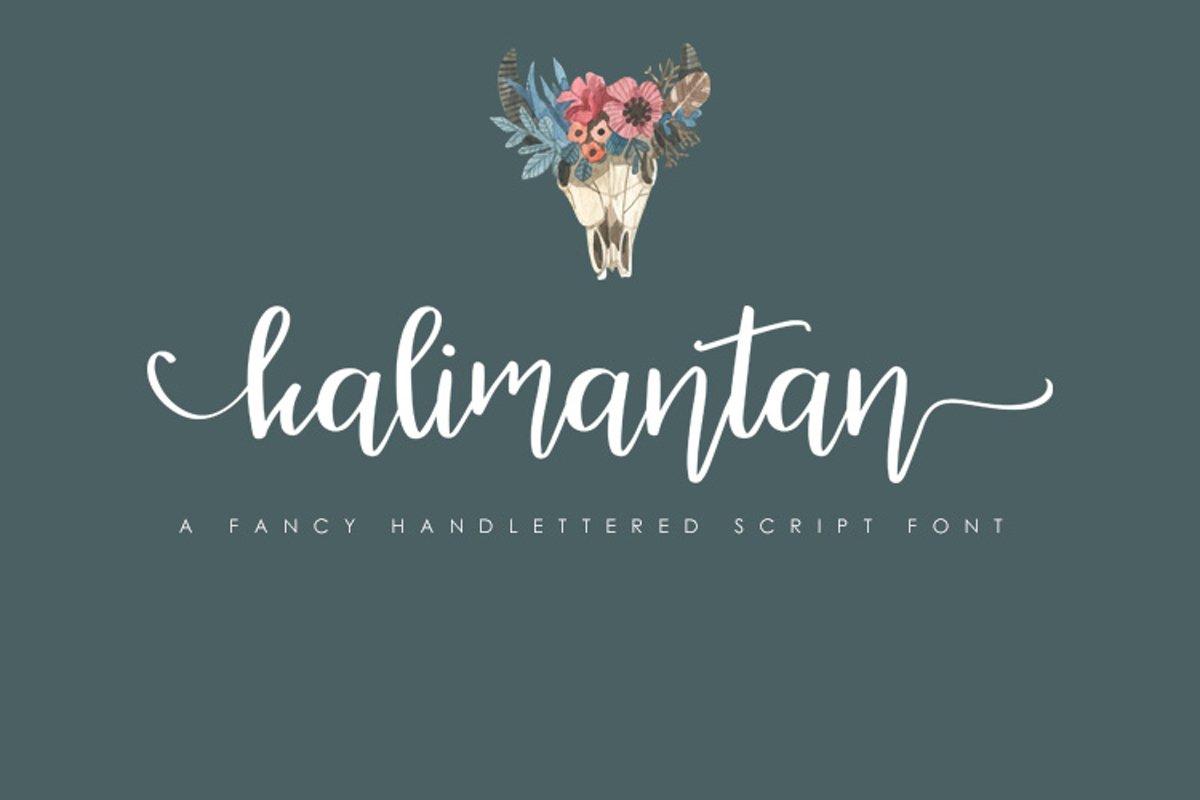
Kalimantan is beautiful calligraphy font create by
handmade. Kalimantan is the name of Indonesia's Island. I hope you are
interested in this font,The fonts are great for product logo,wedding
card logo, Banner, Graphic design, clothing brand logo, and much more.
This font has a model Trendy, natural and gentle, with this font you can
take advantage of the opportunity in every moment of one wonderful way
to highlight the celebration of the feast of your best